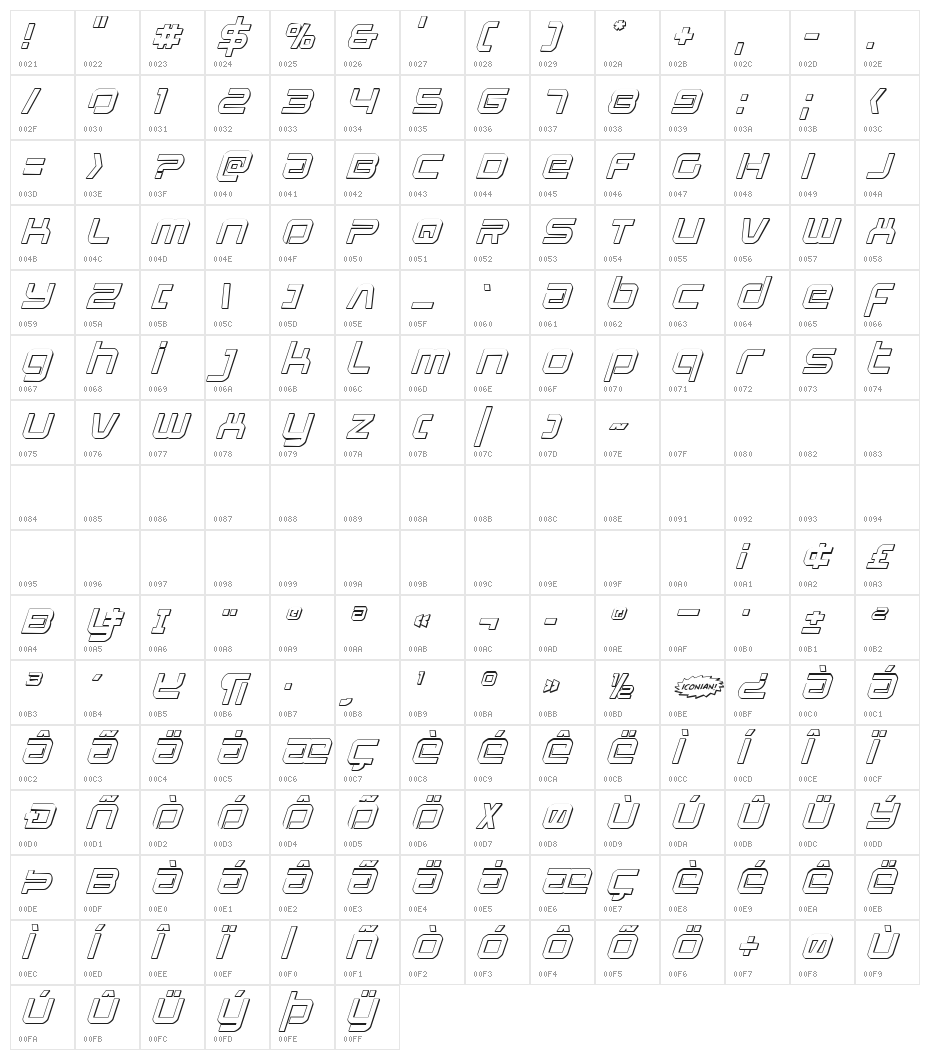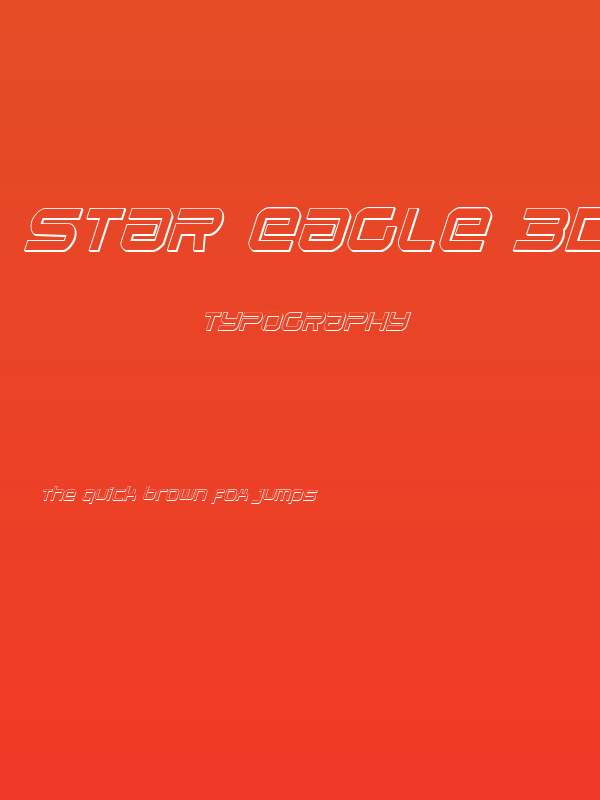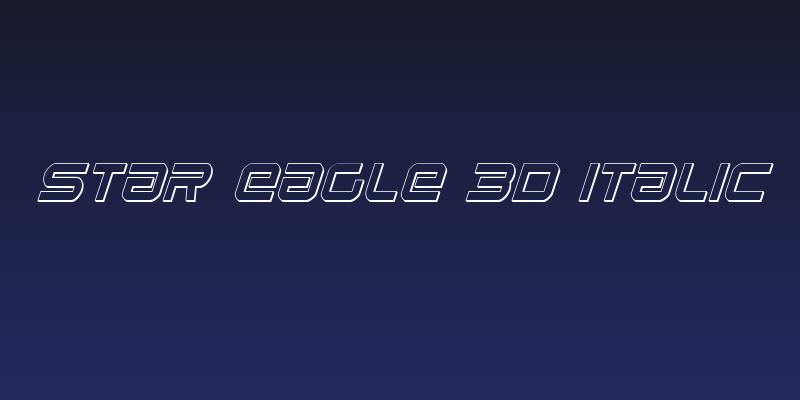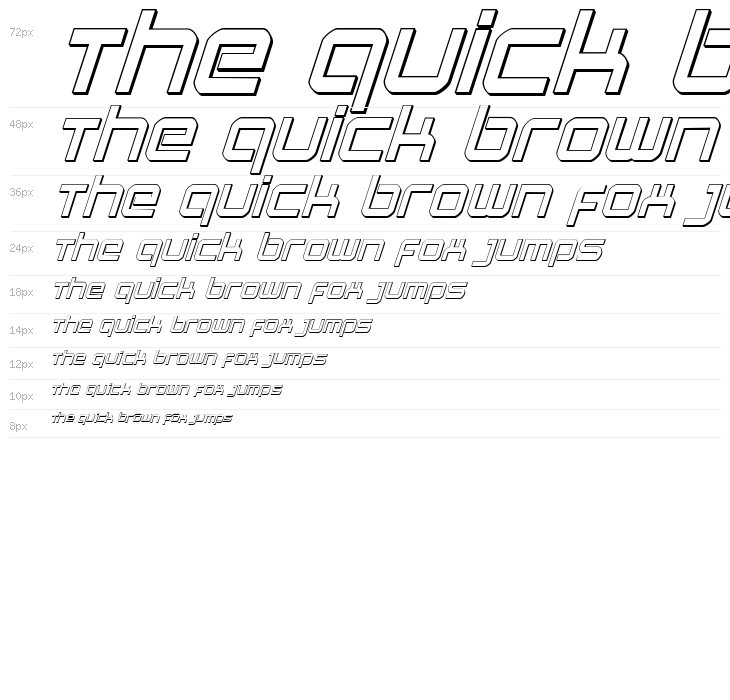
Star Eagle 3D Italic Font
Star Eagle 3D Italic Description
This font features a dynamic and futuristic 3D outline style, characterized by its italicized and geometric letterforms. The characters have a distinct angular design, giving them a sense of movement and energy. The uppercase and lowercase letters maintain a consistent style, with sharp edges and a uniform thickness that enhances the 3D effect. The numerals and special characters follow the same design principles, ensuring a cohesive look across all glyphs. This font is ideal for projects that require a modern and tech-inspired aesthetic, offering a bold and eye-catching appearance.
| Proposed Projects | Ideal for sci-fi themed designs, video game titles, tech branding, and futuristic posters. |